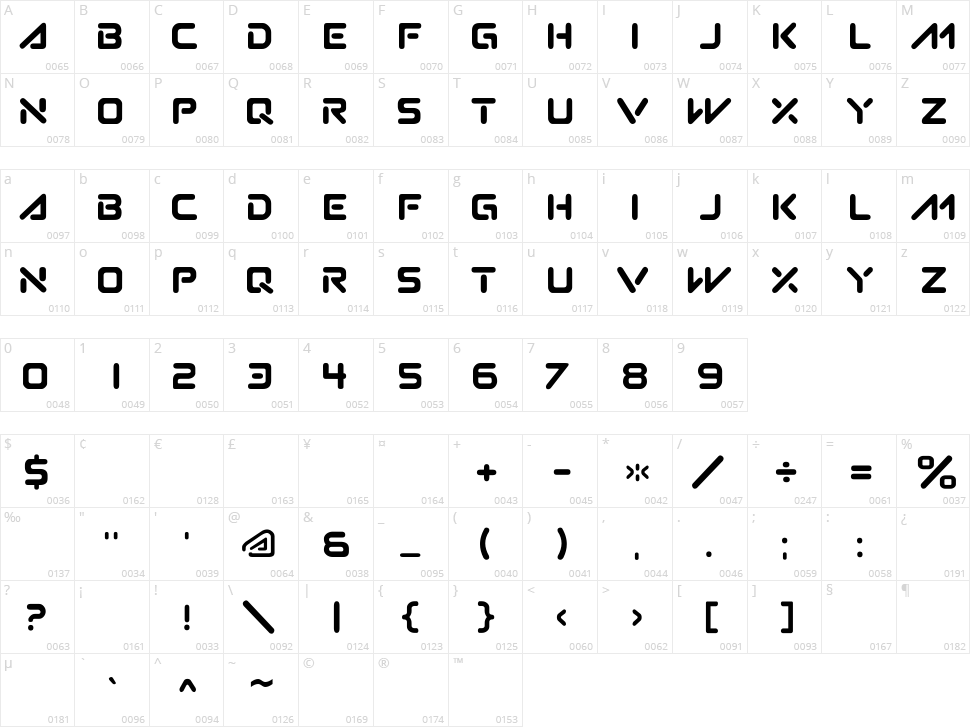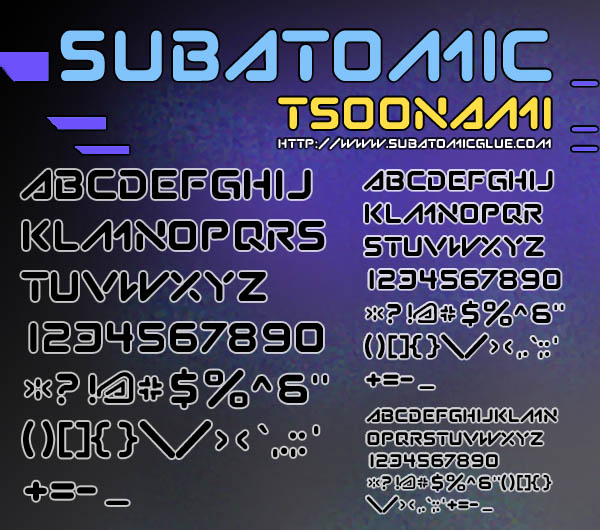
Subatomic Tsoonami
-= Subatomic Tsoonami v0.0.8 =-
Author: subatomic
Description: this is a font similar to the 2004 Toonami font used
on Cartoon Network.
| Designer Name: | Kevin Meinert |